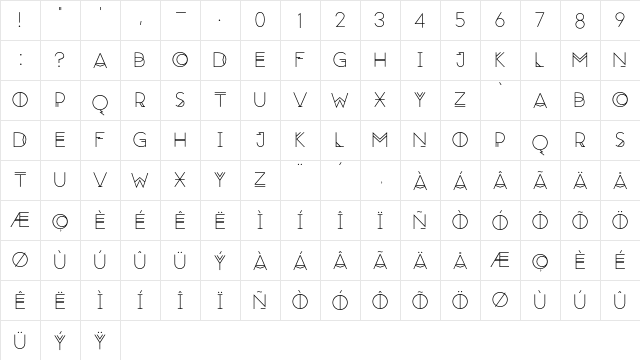
Moonrise Regular
| Foundry | Skyhaven Fonts |
| Designer | Skyhaven |
Design Context for Moonrise Typeface
Moonrise takes a measured approach to typography — its balanced proportions and neutral character make it a reliable workhorse for both digital and print work.